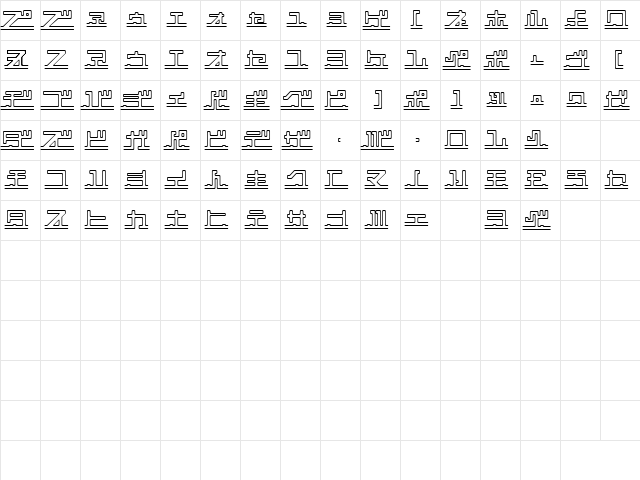
katakana,pipe Regular
Design Context for katakana,pipe Typeface
katakana,pipe is a composed and adaptable typeface that performs quietly and consistently across a wide range of design contexts.